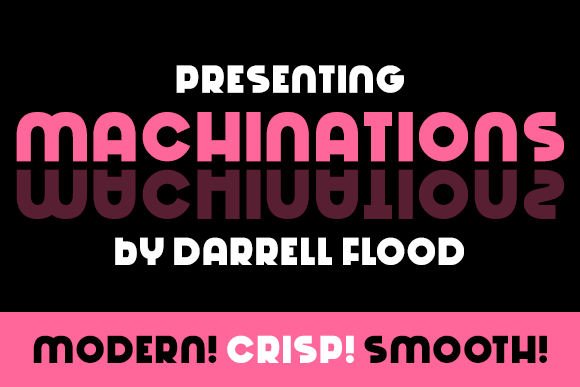
Machinations
Machinations Font
Machinations is a crisp and modern font, with curvy stylistic flair that makes it smooth and inviting. Perfect for advertising and promotional purposes.